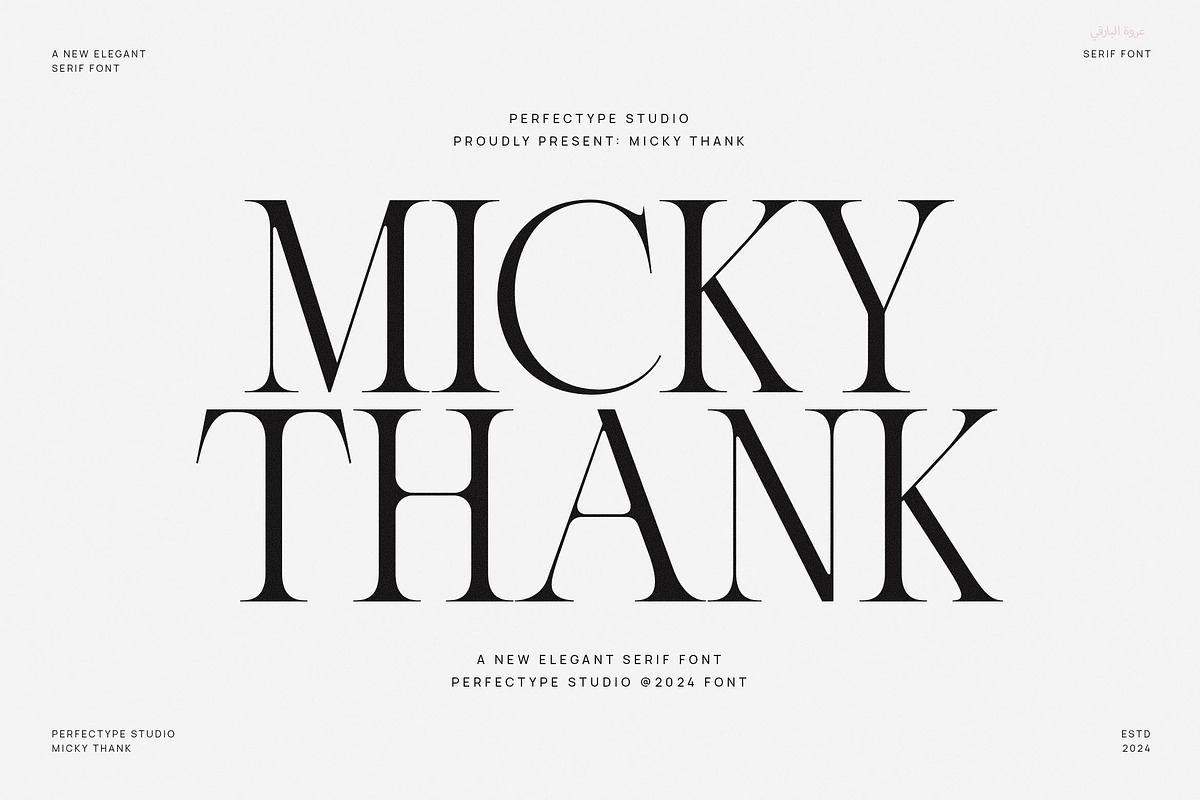
Micky Thank Minimalist Serif Font Free Download
The Micky Thank Minimalist Serif Font Free Download is a clean and modern typeface designed to bring sophistication and simplicity to your designs. Featuring sharp serifs and balanced letterforms, this font is perfect for creating elegant logos, branding, editorial layouts, and marketing materials. Whether you're working on a minimalist project, a contemporary brand, or professional content, Micky Thank adds a polished and refined touch to your work.
Micky Thank Minimalist Serif Font Free Download is ideal for designers looking for a timeless, versatile serif font that combines modern simplicity with elegance. Perfect for upscale branding, websites, and editorial design, this font will elevate your work with its sleek and minimalistic style. Download it today and bring a sophisticated edge to your creative projects with Micky Thank!